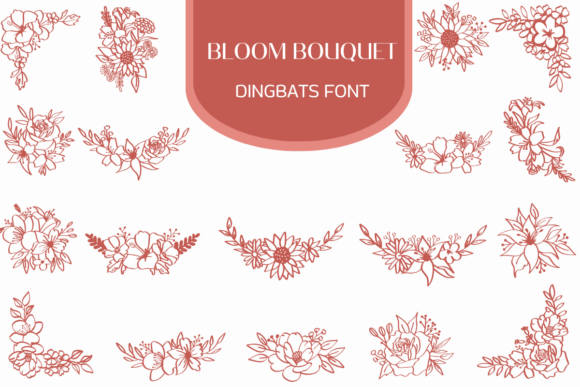
Bloom Bouquet Font: A Beautiful Dingbats Font for Creative Projects
The Bloom Bouquet Font is a stunning dingbats font that has gained popularity among designers, writers, and crafty individuals. This beautiful font is perfect for taking notes, writing a diary, or creating greeting cards. However, its versatility doesn’t stop there. You can use Bloom Bouquet for various designs, such as banners, content, mugs, cards, shirts, stationery, social media posts, and more!
What is Bloom Bouquet Font?
Bloom Bouquet is a type of dingbats font, which means it’s a collection of symbols, icons, and illustrations that can be used to add a decorative touch to your designs. This font is carefully crafted to resemble beautiful bouquets of flowers, with intricate details and elegant lines. The result is a visually appealing font that’s perfect for adding a touch of elegance and sophistication to your projects.
Uses of Bloom Bouquet Font
Bloom Bouquet Font is an incredibly versatile font that can be used for a wide range of creative projects. Here are some ideas to get you started:
- Journaling and Diary Writing: Add a touch of elegance to your journal or diary with Bloom Bouquet Font. Use it to create beautiful headers, decorate your pages, or highlight important entries.
- Greeting Cards: Create stunning greeting cards for special occasions like birthdays, weddings, or holidays. Bloom Bouquet Font is perfect for adding a personal touch to your cards.
- Stationery and Paper Crafts: Use Bloom Bouquet Font to create beautiful stationery, such as letterheads, invitations, or gift tags. You can also use it to decorate your paper crafts, like scrapbook pages or card making projects.
- Social Media Posts: Add a touch of elegance to your social media posts with Bloom Bouquet Font. Use it to create eye-catching graphics, headers, or quotes.
- Banners and Signs: Create beautiful banners and signs for events, parties, or promotions. Bloom Bouquet Font is perfect for adding a decorative touch to your designs.
- Mugs and Apparel: Use Bloom Bouquet Font to create stunning designs for mugs, shirts, or other apparel. This font is perfect for adding a touch of elegance to your designs.
Benefits of Using Bloom Bouquet Font
Bloom Bouquet Font offers several benefits that make it a popular choice among designers and crafty individuals. Here are some of the advantages of using this beautiful font:
- Elegant and Sophisticated: Bloom Bouquet Font is a beautiful and elegant font that adds a touch of sophistication to your designs.
- Versatile: This font is incredibly versatile and can be used for a wide range of creative projects.
- Unique and Creative: This font offers a unique and creative way to express yourself and add a personal touch to your designs.
Tips and Tricks for Using Bloom Bouquet Font
Here are some tips and tricks to help you get the most out of Bloom Bouquet Font:
- Experiment with Different Sizes: Try using Bloom Bouquet Font in different sizes to create visual interest and add emphasis to your designs.
- Combine with Other Fonts: Combine Bloom Bouquet Font with other fonts to create a unique and interesting look.
- Use on Different Backgrounds: Try using Bloom Bouquet Font on different backgrounds to create contrast and add visual interest.
- Add Colors and Patterns: Add colors and patterns to your designs to make them more visually appealing.
Bloom Bouquet Font is a beautiful and versatile dingbats font that’s perfect for creative projects. With its elegant and sophisticated design, this font can add a touch of elegance to your journaling, greeting cards, stationery, social media posts, and more. Whether you’re a designer, writer, or crafty individual, Bloom Bouquet Font is a great addition to your font collection.